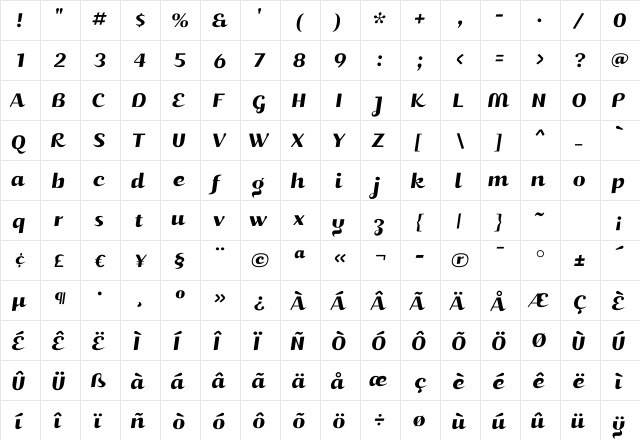
JuicyRegular Italic Regular
JuicyRegular Italic takes a measured approach to typography — its balanced proportions and neutral character make it a reliable workhorse for both digital and print work. The dynamic lean of this cut emphasises speed and emphasis in any layout.